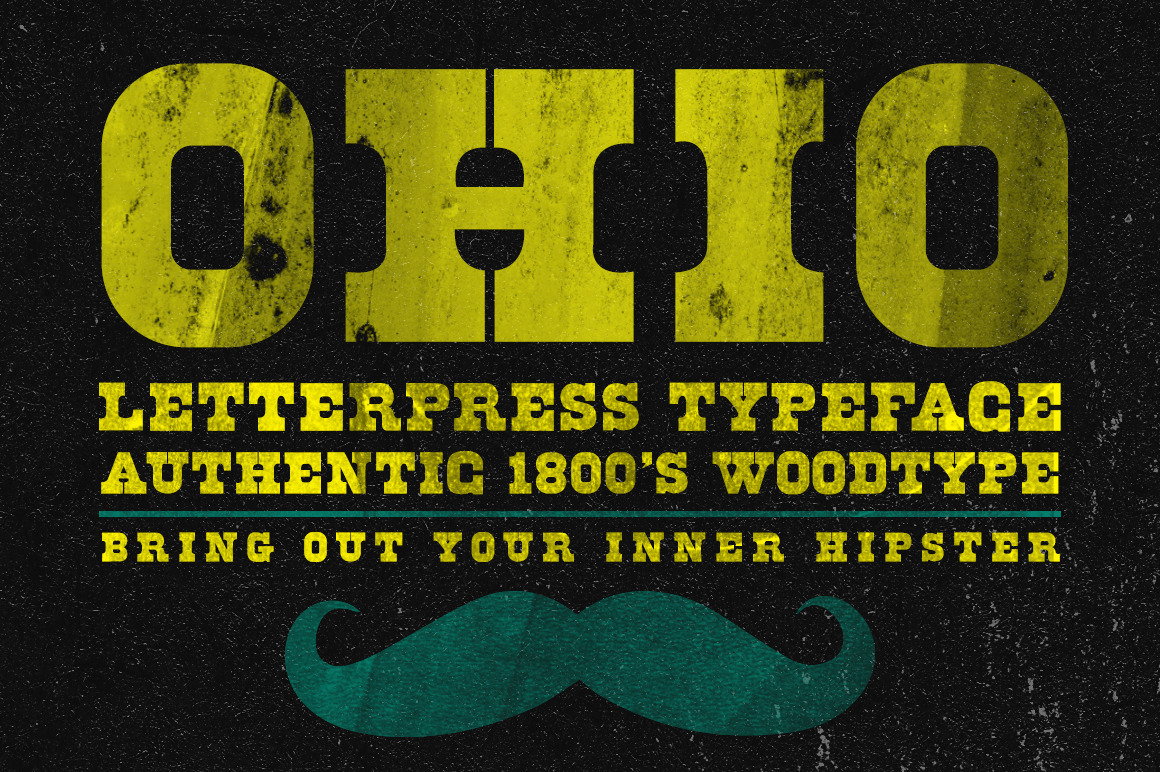
Ohio - Wood Type Typeface
We originally found this font in a moldy old type tray labeled only with the name "Drawer #14". Deciding that it was too great looking to pass up we decided to revive it by turning it into a computer and @font-face font. All letters, numbers and glyphs are authentic re-creations of this 1800's era wood type font.
- Authentic re-creation of 1800's letterpress era wood type